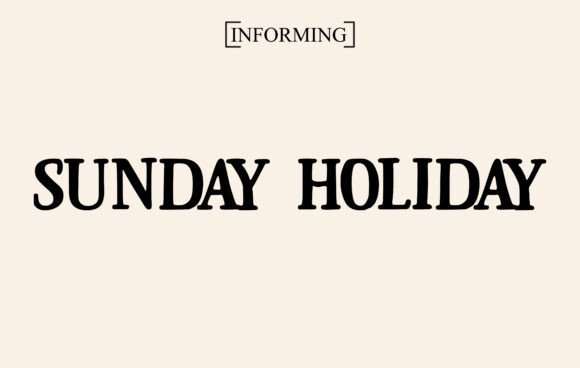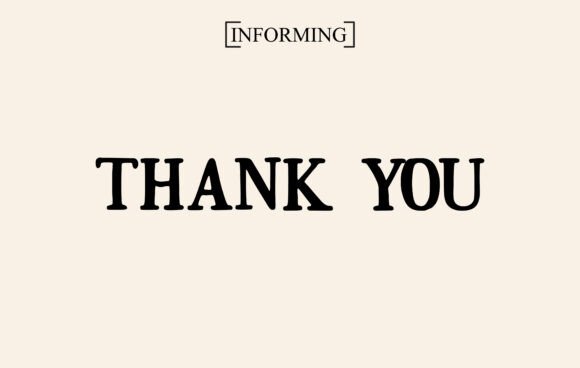
Introducing Divine Echo Font: Elevate Your Designs with Elegance and Versatility
In the world of typography, a font can make all the difference in bringing your creative ideas to life. If you’re a designer, crafter, or simply someone who loves to dabble in creative projects, you’re likely always on the lookout for the perfect font to elevate your work. That’s where Divine Echo Font comes in – a stunning, versatile, and highly legible font designed to take your designs to new heights.
What Makes Divine Echo Font Stand Out?
Divine Echo Font is crafted with precision and passion, making it a true favorite among designers and crafters alike. Its unique charm lies in its perfect balance of elegance and playfulness, making it suitable for a wide range of projects. Whether you’re working on magazine headlines, t-shirts, social media graphics, branding materials, wedding invitations, or cards, this font is sure to impress.
Key Features of Divine Echo Font
- Legibility: One of the standout features of Divine Echo Font is its exceptional legibility. Whether you’re using it for body text or titles, this font ensures that your message is conveyed clearly and effectively.
- Versatility: Divine Echo Font is incredibly versatile, making it perfect for various design projects. Its adaptability ensures that it can be used in both digital and print formats with ease.
- Elegance: With its sophisticated and refined aesthetic, Divine Echo Font adds a touch of elegance to any design. It’s ideal for projects that require a bit of luxury and finesse.
Endless Design Possibilities with Divine Echo Font
The possibilities are endless when you’re working with Divine Echo Font. Here are some design ideas to get you started:
- Magazine Headlines: Create eye-catching headlines that grab attention and draw readers in.
- T-Shirts and Apparel: Design stunning apparel with quotes, slogans, or messages that stand out.
- Social Media Graphics: Elevate your social media presence with custom graphics that showcase your brand’s personality.
- Branding and Logo Design: Establish a strong brand identity with a custom logo and typography that reflect your brand’s values.
- Wedding Invitations and Cards: Add a touch of elegance to your wedding stationery or greeting cards with Divine Echo Font.
Why Choose Divine Echo Font?
With so many fonts available, why choose Divine Echo Font? Here are a few compelling reasons:
- Unique Style: Divine Echo Font offers a distinctive style that’s sure to set your designs apart from the rest.
- Easy to Use: This font is incredibly easy to use, even for those who are new to design or typography.
- High-Quality: Divine Echo Font is crafted with high-quality standards in mind, ensuring that your designs look professional and polished.
Divine Echo Font is a game-changer for designers and crafters looking to elevate their creative projects. With its exceptional legibility, versatility, and elegance, this font is sure to become a favorite in your design arsenal. Whether you’re working on a personal project or a client’s design brief, Divine Echo Font has the potential to take your ideas to new heights. So why wait? Explore the endless design possibilities with Divine Echo Font today and discover a world of creative possibilities!